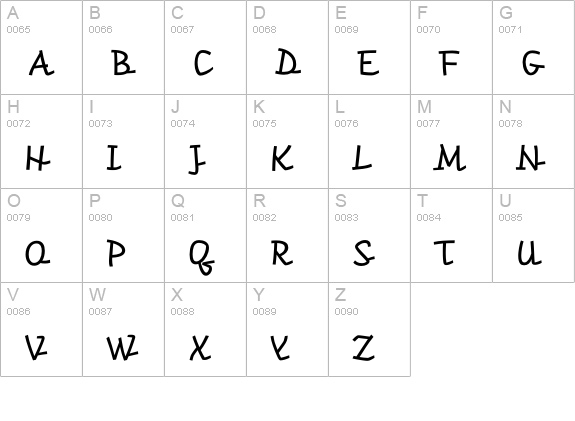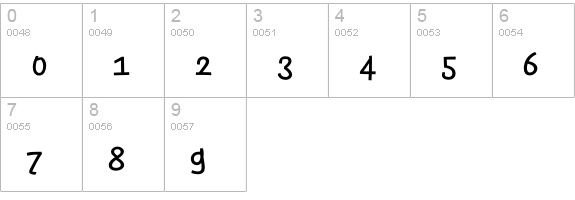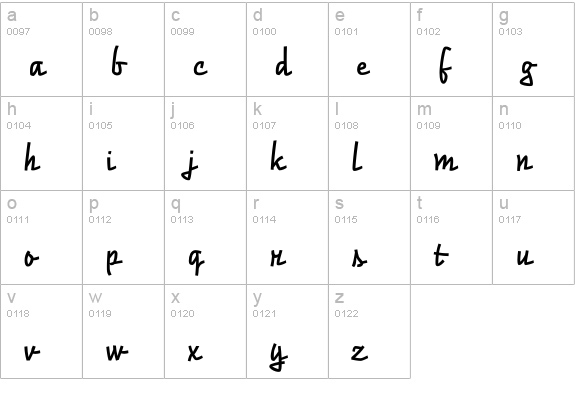
Razom Script Regular is the standard, neutral variant in the Razom typeface family \xE2\x80\x94 well suited to general body text, paragraphs, and standard typographic work.
Razom Script Regular font is a beautiful and elegant typeface that exudes sophistication and charm. Its flowing cursive style and delicate curves make it perfect for adding a touch of grace to any design project. Whether you're creating wedding invitations, branding materials, or decorative elements, Razom Script Regular font is sure to impress. The best part is that Razom Script Regular font is completely free to download at FontsMarket.com. You can easily access this stunning typeface and elevate your designs without any cost. Embrace the beauty and versatility of Razom Script Regular font today and bring your creative visions to life with ease.